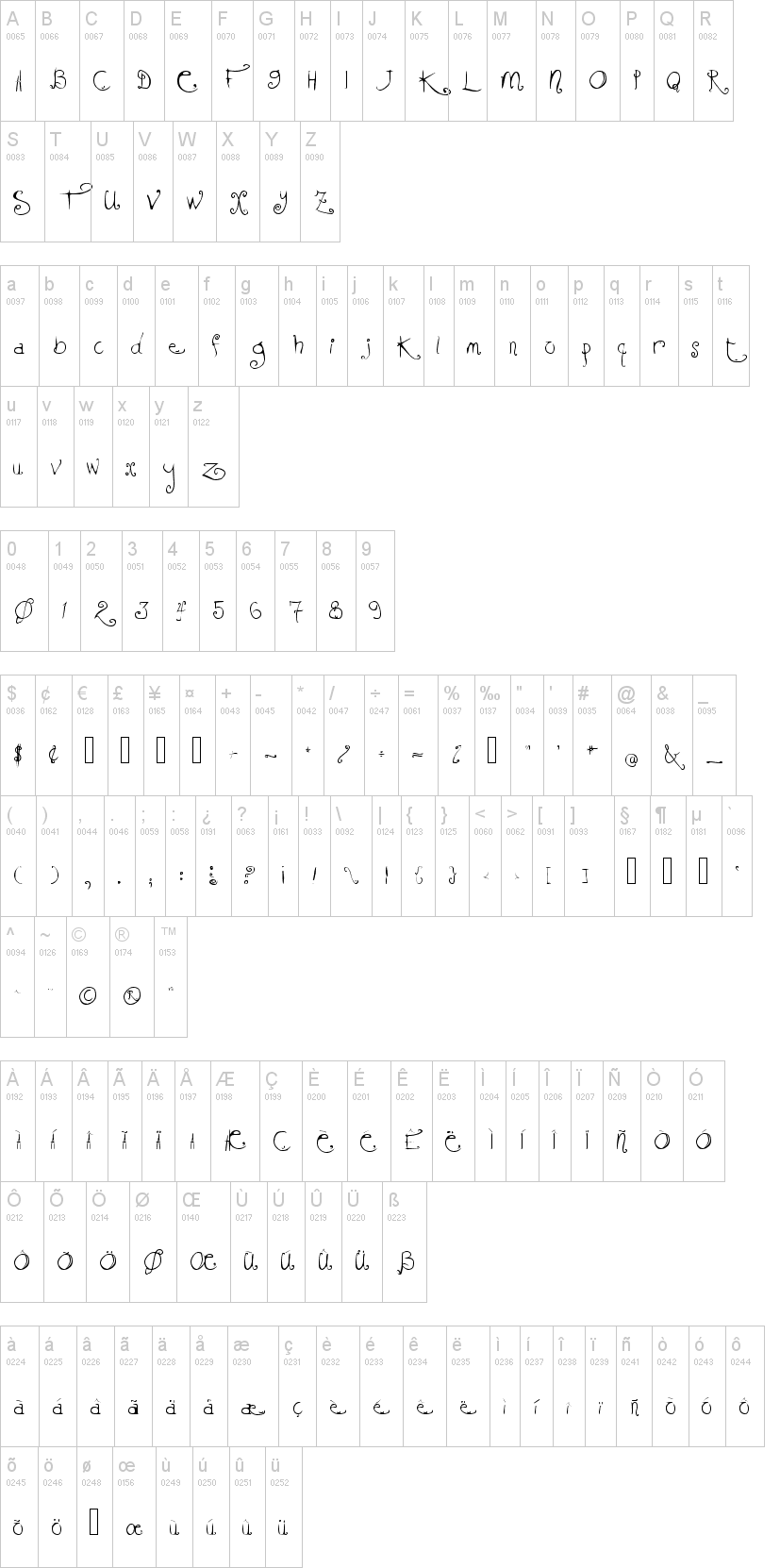
Note of the authorThis font is based on the writing on The Cure's Kiss Me, Kiss Me album. It's freeware, but if you like it please consider making a small donation.:D FatCatFonts.com